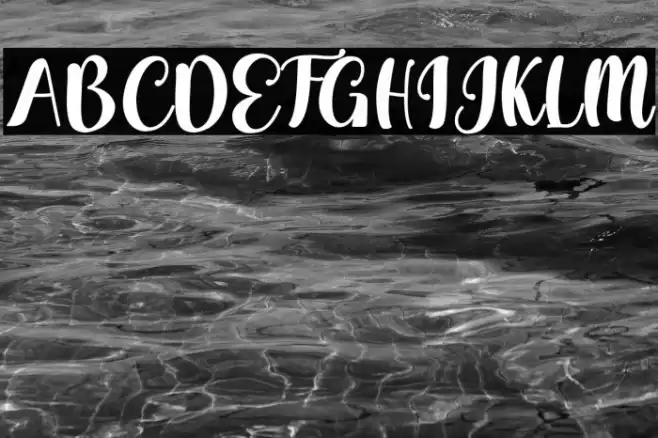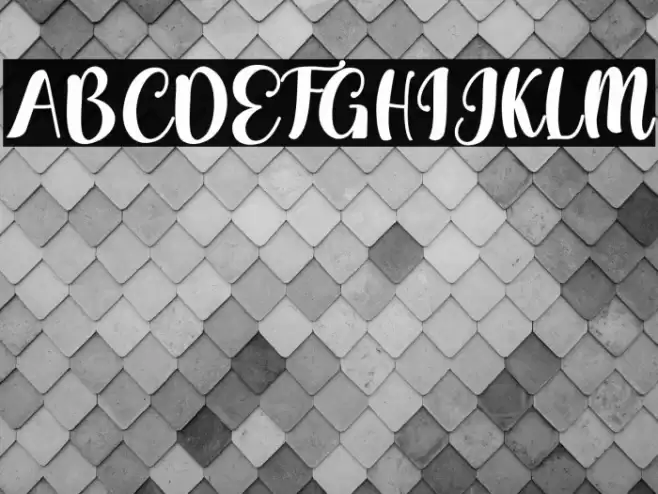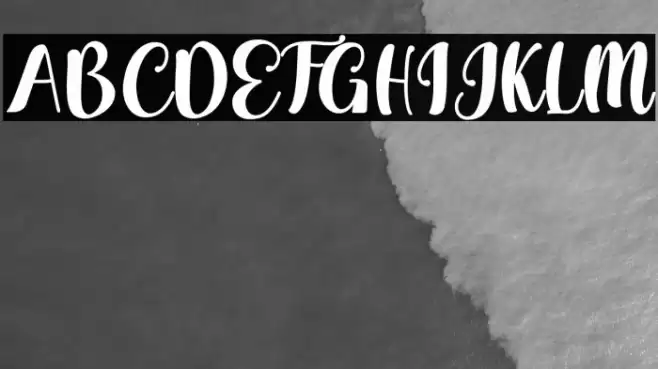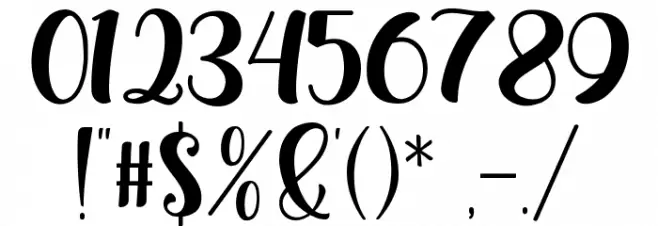
Honey Shake Font
Honey Shake Description
This font features a playful and energetic script style with a handwritten feel. The letters are bold and rounded, with a smooth flow that mimics natural handwriting. The uppercase letters are slightly more structured, while the lowercase letters exhibit a more fluid and connected appearance. The numbers and special characters maintain the same lively and dynamic style, making them cohesive with the alphabet. This font's charm lies in its ability to convey a sense of warmth and friendliness, making it suitable for a variety of creative projects.
A playful and energetic script font with a handwritten feel from Uncategorized fonts.
- Font: Honey Shake
- Proposed Projects: Ideal for greeting cards, invitations, branding, and social media graphics.
- Use Case: Logos, Headlines, Invitations